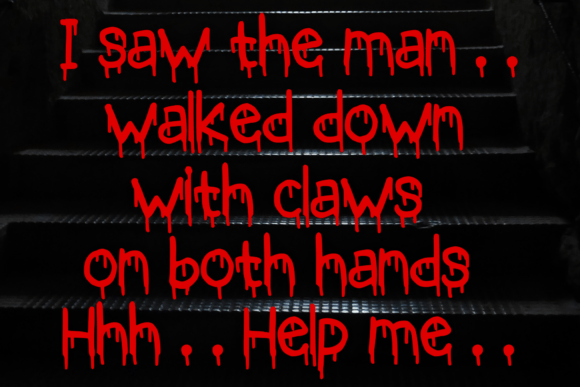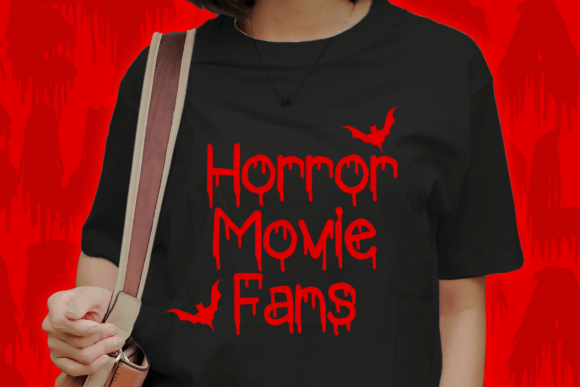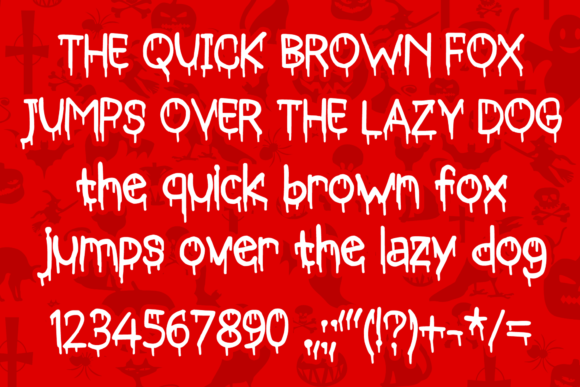
Bloody Skinny Font: The Ultimate Kids-Friendly Display Font for Creepy Cool Designs
Are you looking for a font that adds a spooky touch to your designs without being too scary? Look no further than the Bloody Skinny font! This kids-friendly blood drips display font is perfect for Halloween-themed projects, but its versatility means you can use it for a wide range of creative endeavors. In this article, we’ll dive into the world of Bloody Skinny and explore its many uses, from graffiti tags to scary book designs.
A Font that’s Bloody Awesome
Bloody Skinny is a unique font that combines a playful, skinny design with blood drips, creating a look that’s both creepy and cool. The font is designed to be fun and engaging, making it perfect for kids’ projects, such as Halloween party invitations, trick-or-treat bags, or spooky storybooks. But don’t let its kid-friendly vibe fool you – Bloody Skinny is also a great choice for more mature designs, like graffiti tags, street art, and even horror-themed projects.
Uses for Bloody Skinny
The possibilities are endless when it comes to using Bloody Skinny. Here are a few ideas to get you started:
- T-shirts and clothing: Add a spooky touch to your apparel designs with Bloody Skinny. It’s perfect for Halloween-themed tees, hoodies, or even just a fun graphic tee.
- Scary book designs: Create a creepy cover for your horror novel or short story collection with Bloody Skinny. The font’s blood drips will add a eerie touch to your design.
- Greeting cards: Send a spooky greeting with Bloody Skinny. It’s perfect for Halloween cards, but you can also use it for other occasions, like birthdays or get-well cards.
- Stickers and posters: Add a fun touch to your stickers and posters with Bloody Skinny. It’s a great way to grab attention and add a bit of personality to your designs.
- Banners and signs: Create a bold, eye-catching banner with Bloody Skinny. It’s perfect for Halloween parties, haunted houses, or other spooky events.
Why Designers and Crafters Love Bloody Skinny
So, why do designers and crafters love Bloody Skinny? Here are a few reasons:
- Unique design: Bloody Skinny has a one-of-a-kind design that’s sure to stand out. The combination of skinny letters and blood drips creates a look that’s both creepy and cool.
- Kids-friendly: Bloody Skinny is a great choice for kids’ projects, making it a versatile font that can be used for a wide range of creative endeavors.
- Fun and playful: Bloody Skinny adds a fun and playful touch to any design. It’s perfect for designers and crafters who want to create projects that are a little bit spooky, but still fun and engaging.
Tips for Using Bloody Skinny
Here are a few tips for using Bloody Skinny in your designs:
- Experiment with colors: Bloody Skinny looks great in a variety of colors, from bold and bright to dark and muted. Experiment with different colors to find the look that works best for your design.
- Play with textures: Add some texture to your design with Bloody Skinny. You can use the font on its own or combine it with other textures, like blood splatters or creepy backgrounds.
- Keep it simple: Don’t be afraid to keep things simple with Bloody Skinny. The font’s bold design can stand on its own, making it perfect for simple, yet effective designs.
Bloody Skinny is a versatile font that’s perfect for designers and crafters who want to add a spooky touch to their projects. With its unique design, kids-friendly vibe, and ease of use, Bloody Skinny is a great choice for a wide range of creative endeavors. Whether you’re designing Halloween-themed projects or just want to add a bit of personality to your designs, Bloody Skinny is a font that’s sure to impress. So why not give it a try and see what kind of creepy cool designs you can create?